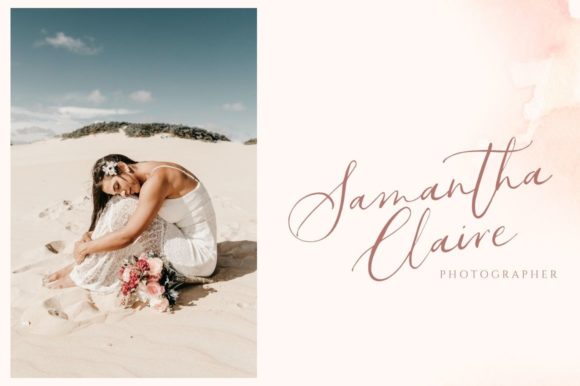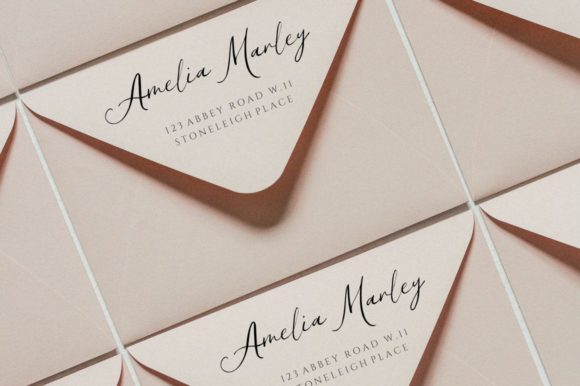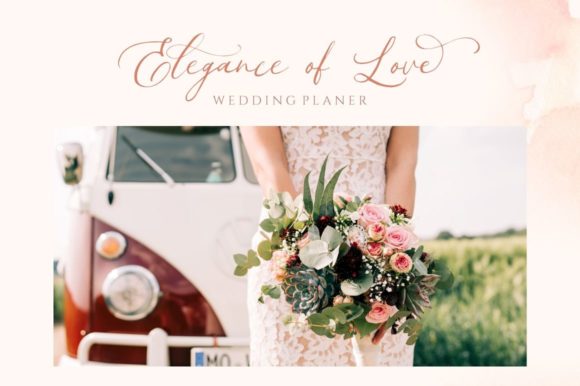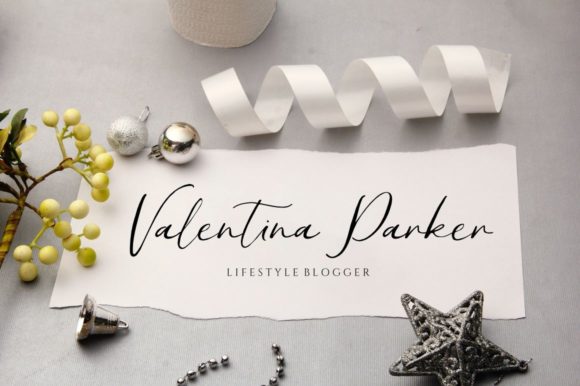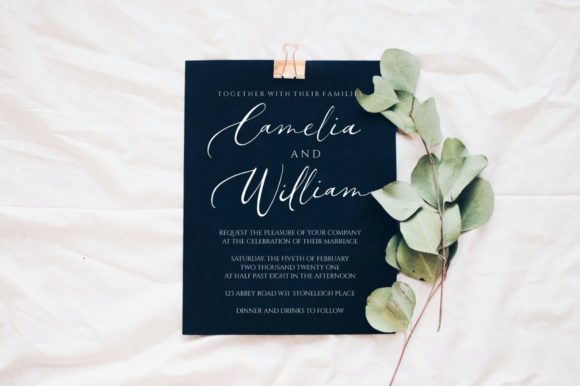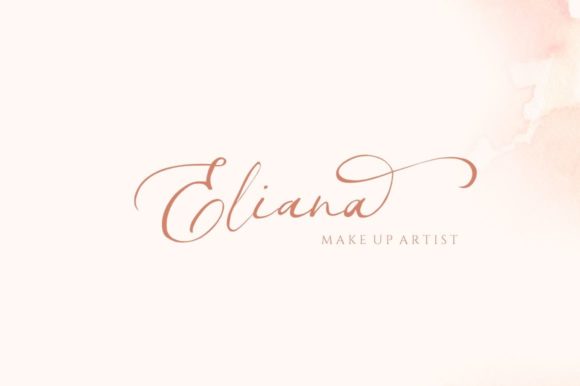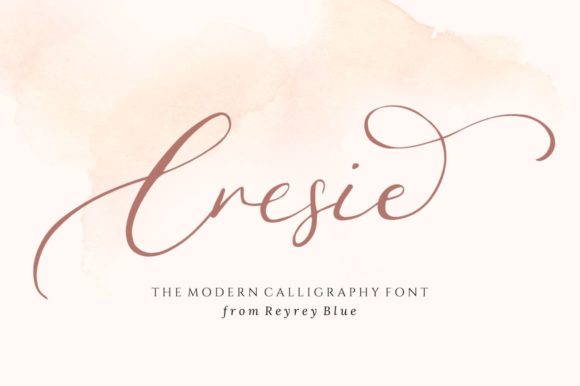
Cresie Font: Elevate Your Designs with a Lovely and Timeless Handwritten Style
Are you on the hunt for a font that can add a touch of elegance and sophistication to your designs? Look no further than Cresie Font, a beautiful and timeless handwritten font that’s perfect for creating eye-catching logos, branding, and quotes. With its unique and beautiful touch, Cresie Font is sure to make your design come alive!
What Makes Cresie Font So Special?
Cresie Font is a stunning handwritten font that’s designed to add a personal touch to your designs. Every letter has a unique and beautiful touch, which sets it apart from other fonts. The font is carefully crafted to provide a sense of warmth and elegance, making it perfect for a wide range of design projects.
One of the standout features of Cresie Font is its PUA (Private Use Area) encoding. This means that you can access all of the glyphs and swashes with ease, giving you complete creative control over your designs. Whether you’re a professional designer or a crafty DIY enthusiast, Cresie Font provides the flexibility and versatility you need to bring your vision to life.
Cresie Font is an excellent choice for creating eye-catching logos, branding, and quotes. Its elegant and sophisticated style makes it perfect for businesses and individuals looking to establish a strong brand identity. With Cresie Font, you can create stunning logos, business cards, and marketing materials that will help you stand out from the crowd.
Whether you’re designing for print or digital, Cresie Font is a versatile font that can be used in a wide range of applications. From social media graphics to website headers, Cresie Font is the perfect choice for adding a touch of elegance and sophistication to your designs.
Why Designers and Crafters Love Cresie Font
Designers and crafters love Cresie Font for its unique and beautiful style. The font is carefully crafted to provide a sense of warmth and elegance, making it perfect for a wide range of design projects. Here are just a few reasons why designers and crafters love Cresie Font:
- Unique and beautiful style: Cresie Font has a unique and beautiful touch that sets it apart from other fonts.
- PUA encoded: Cresie Font is PUA encoded, making it easy to access all of the glyphs and swashes.
- Perfect for logos and branding: Cresie Font is perfect for creating eye-catching logos and branding materials.
- Versatile: Cresie Font can be used in a wide range of applications, from print to digital.
Tips for Using Cresie Font
Here are a few tips for using Cresie Font in your designs:
- Use it for headlines and titles: Cresie Font is perfect for headlines and titles, where you want to make a bold statement.
- Pair it with other fonts: Cresie Font pairs well with other fonts, so feel free to experiment with different combinations.
- Experiment with different colors: Cresie Font looks great in a wide range of colors, so don’t be afraid to experiment.
Cresie Font is a lovely and timeless handwritten font that’s perfect for designers and crafters looking to add a touch of elegance and sophistication to their designs. With its unique and beautiful style, PUA encoding, and versatility, Cresie Font is an excellent choice for creating eye-catching logos, branding, and quotes. So why wait? Download Cresie Font today and start elevating your designs to the next level!